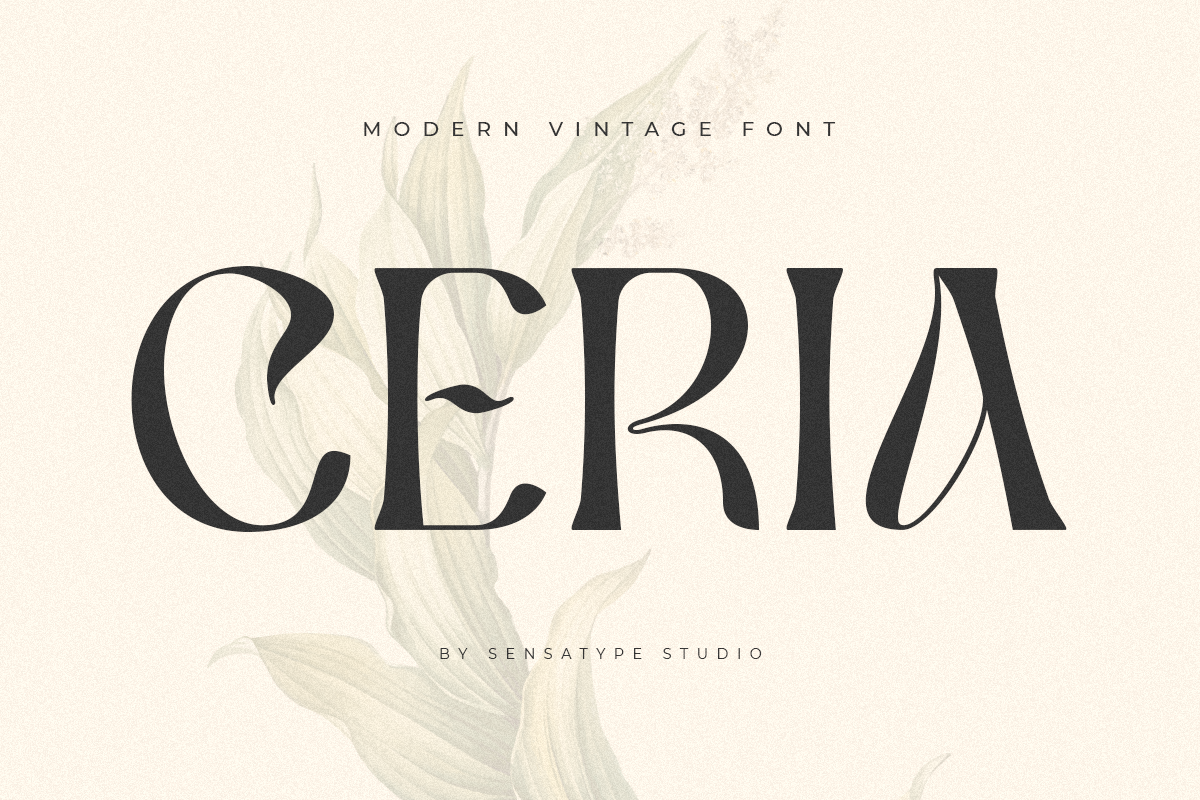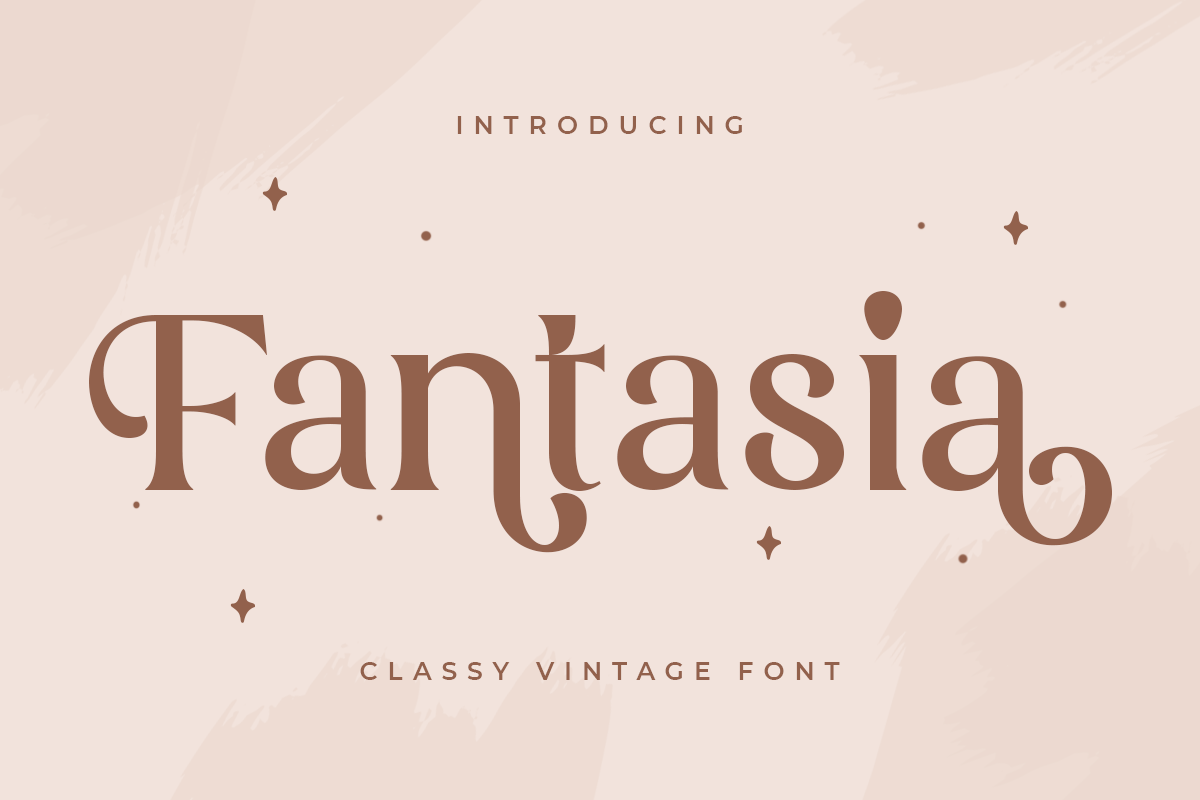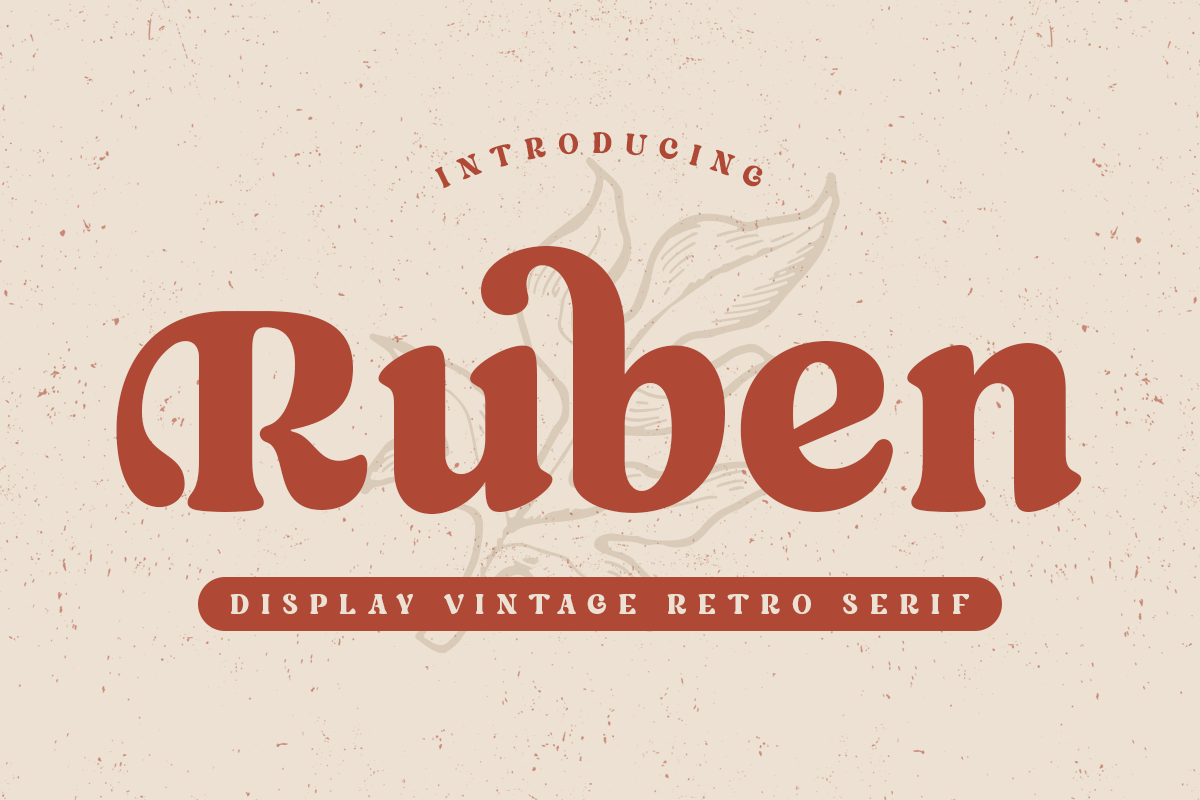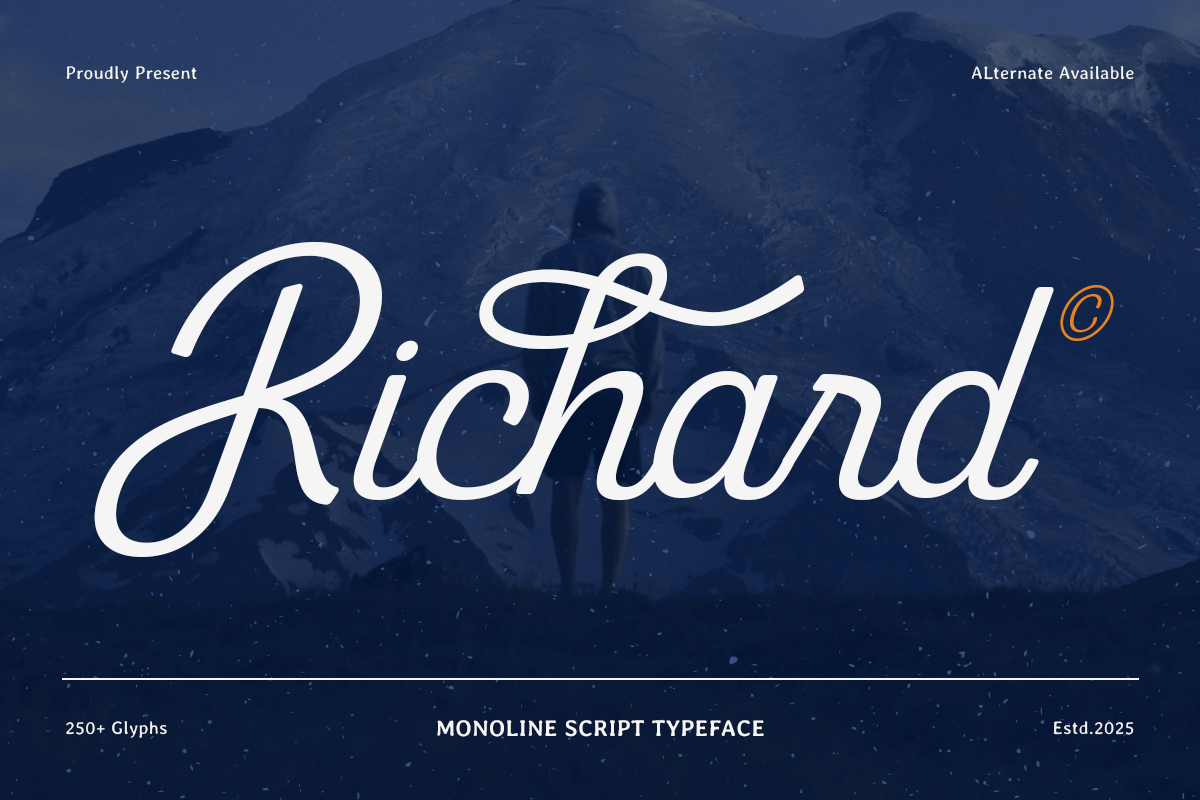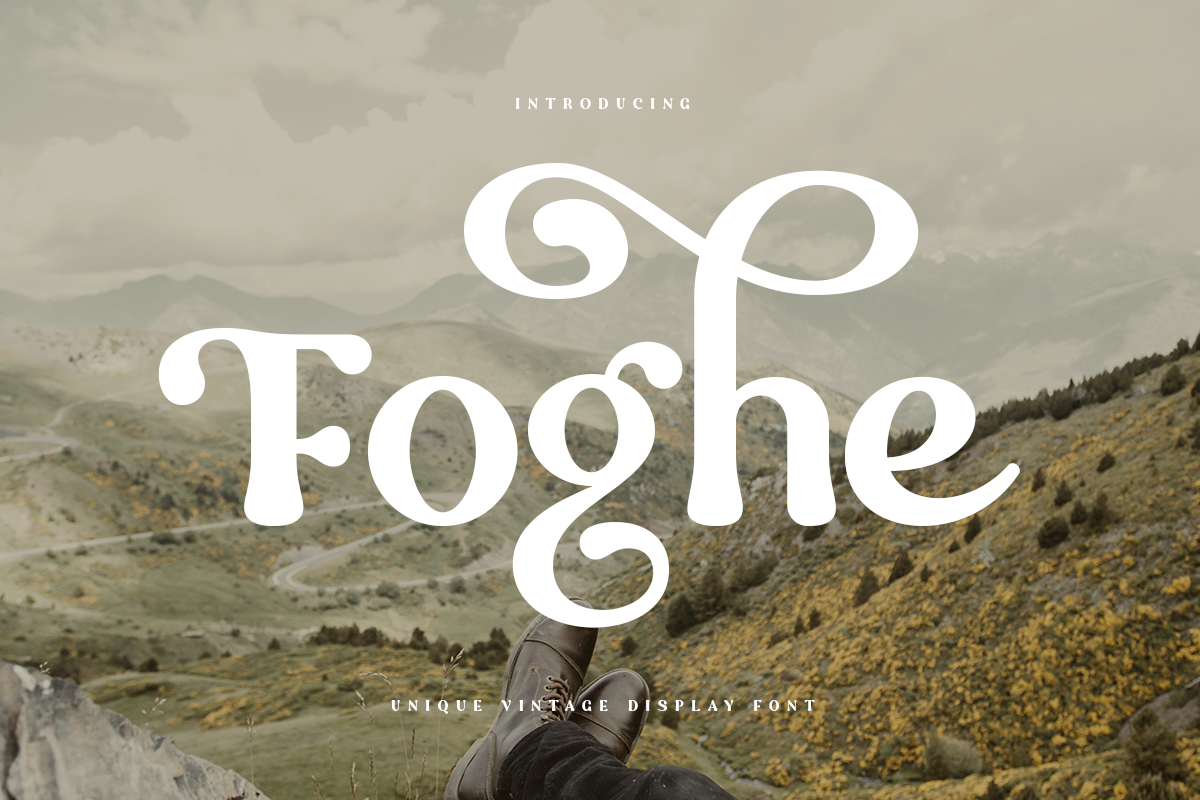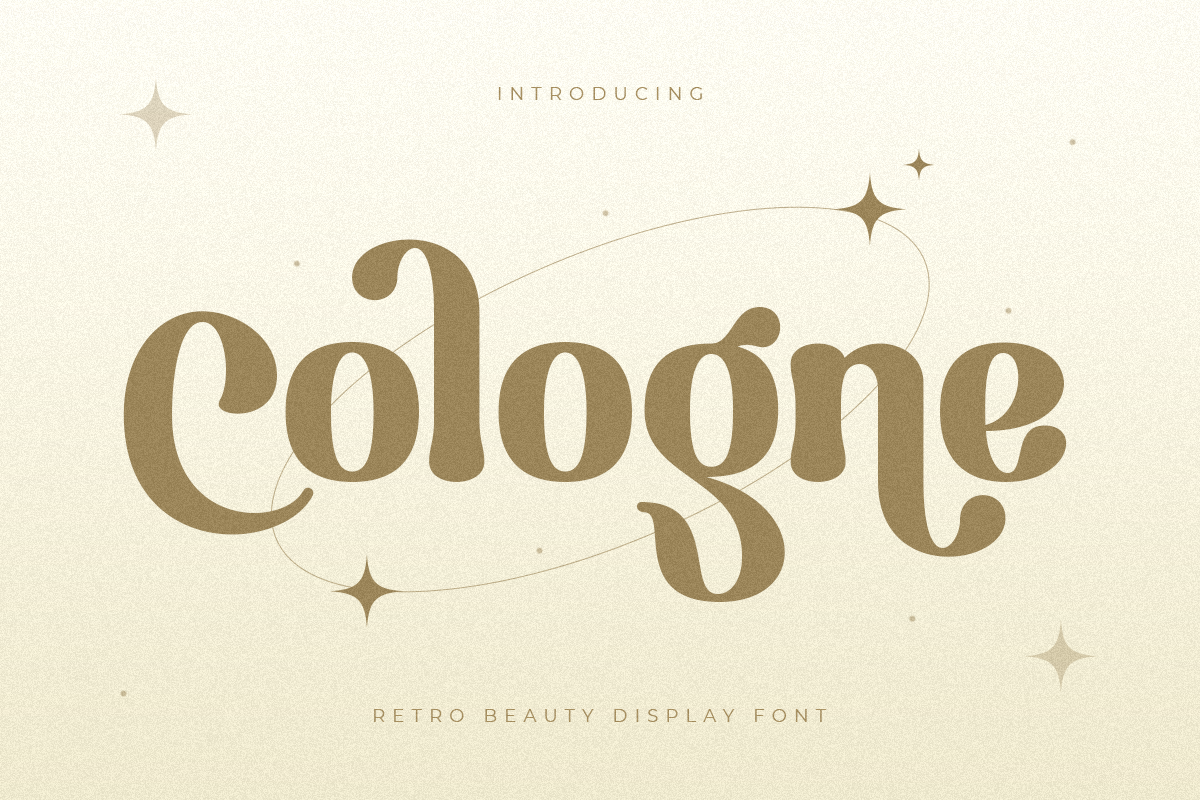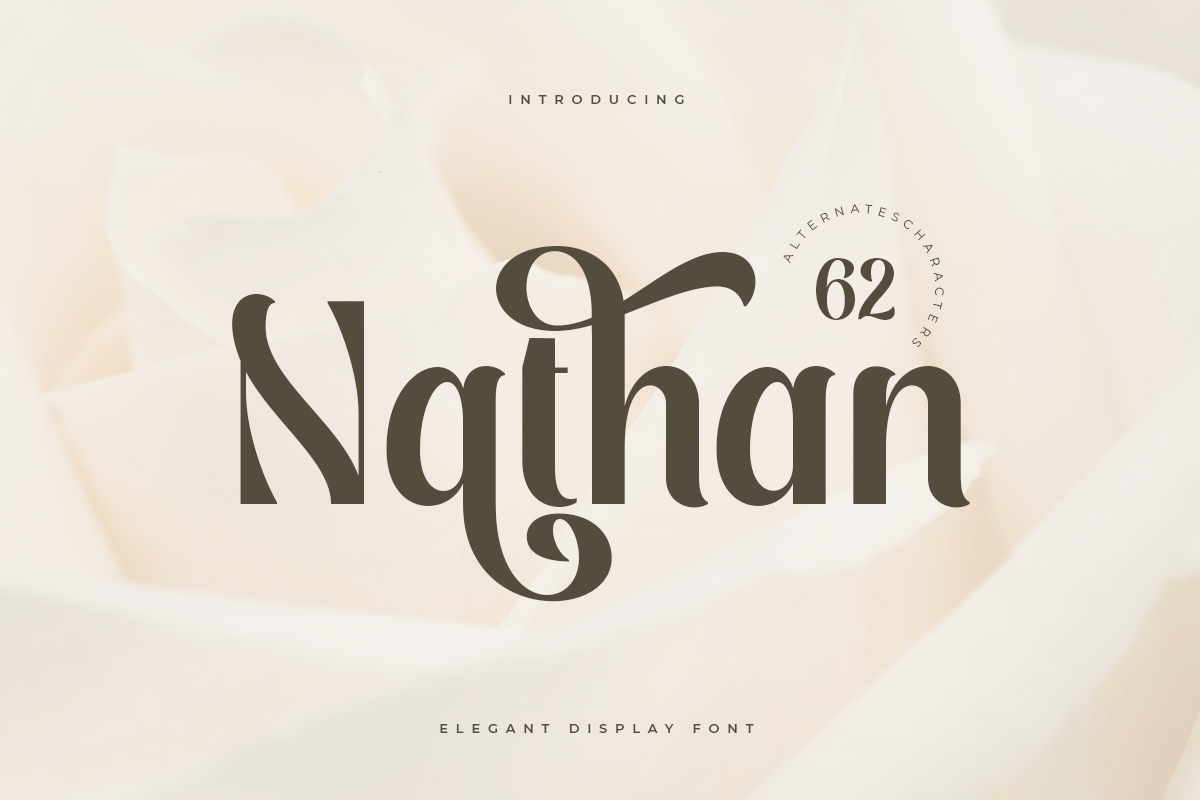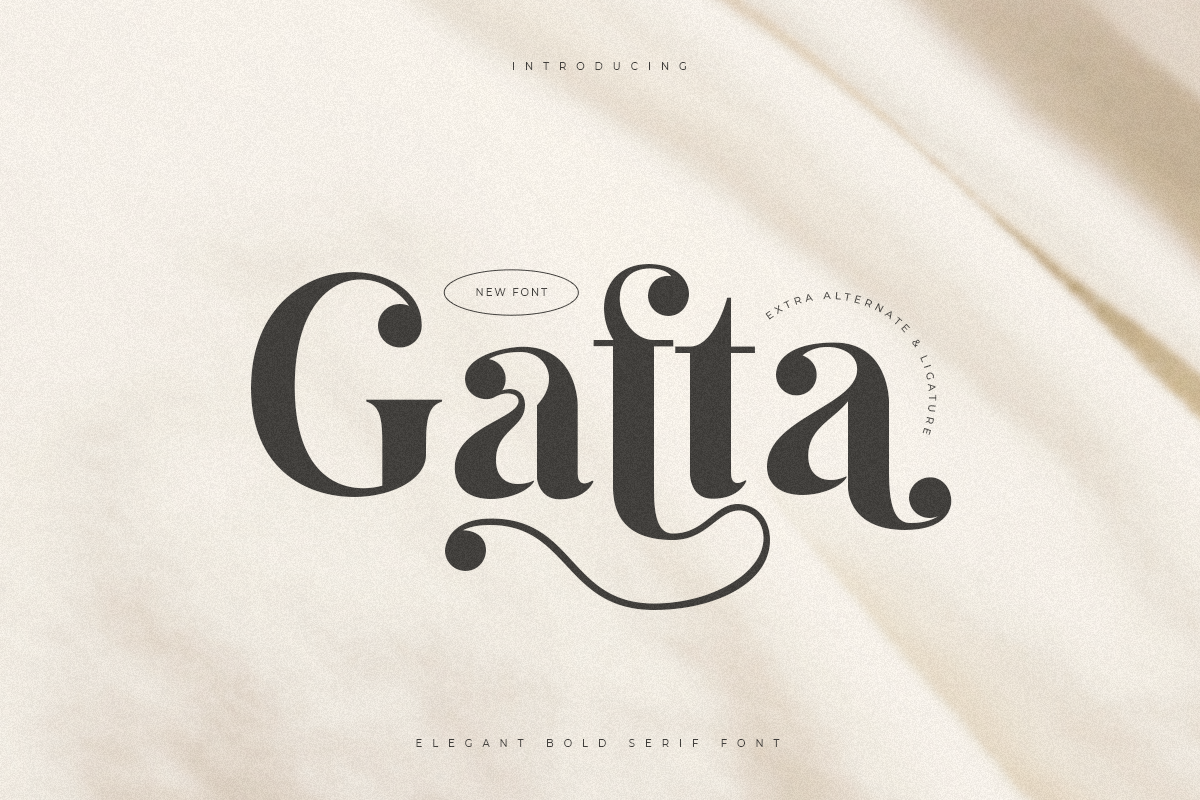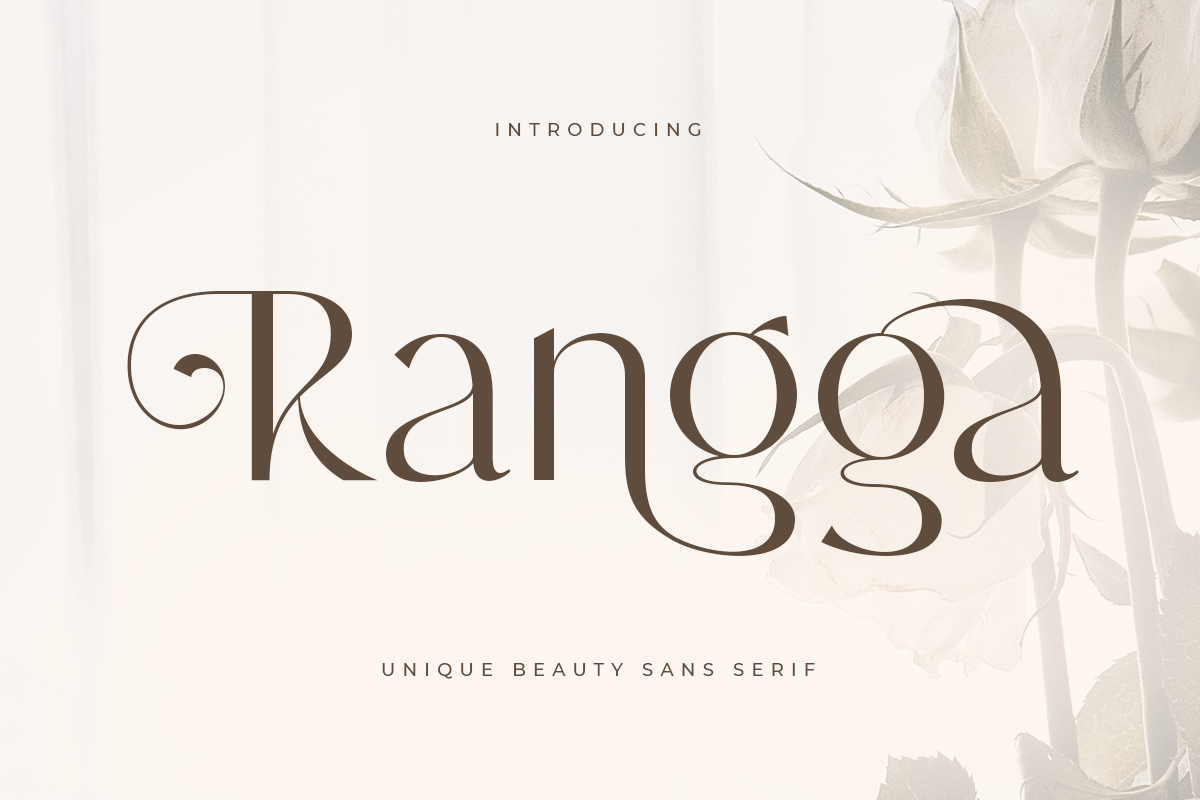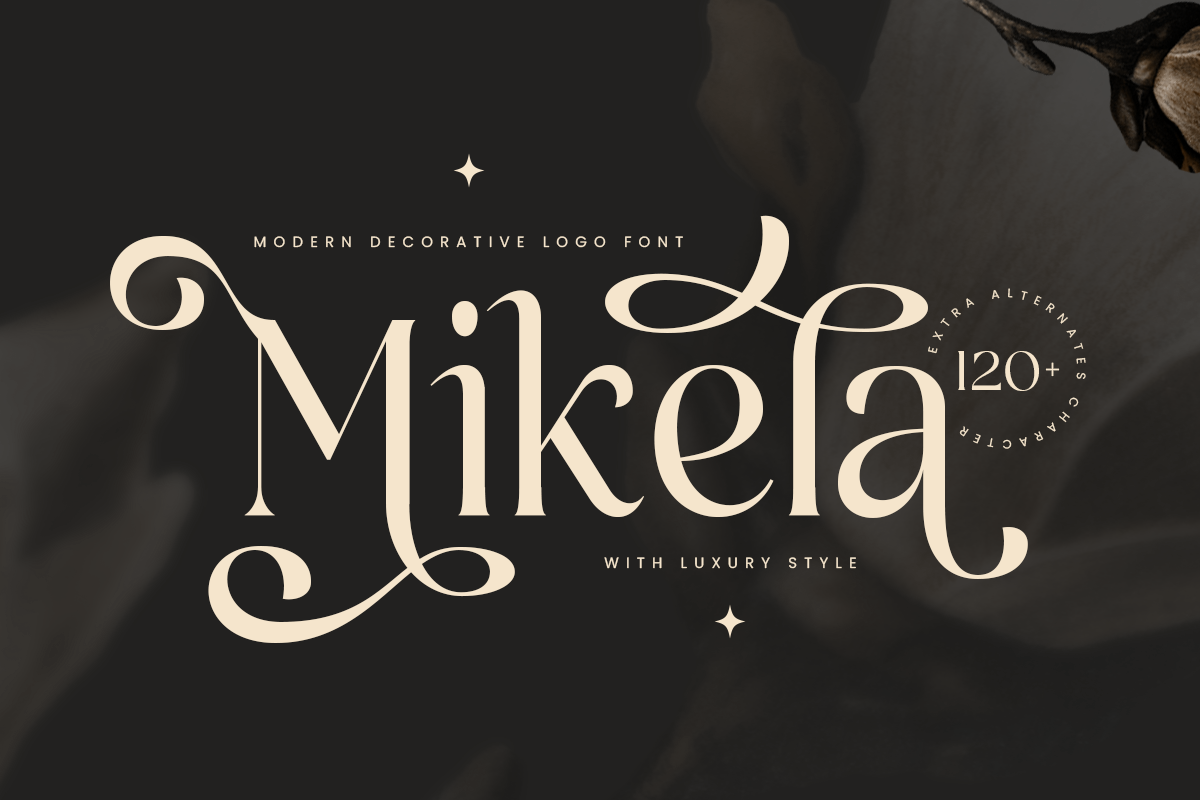
50+ Best Curvy Fonts for Logos, Branding, and Packaging in 2026
Fonts play a crucial role in design. They can make or break the entire look of your project. Curvy fonts are a popular choice for designers as they add a unique flair to their designs. These fonts have soft curves and rounded edges, giving them a friendly and approachable feel. In this article, we have compiled a list of the 50 best curvy fonts that you can use in your next project.
Fonts shape how a design feels before anyone reads a word. Curvy fonts stand out because they use soft lines, flowing shapes, and rounded details that feel expressive, stylish, and easy to remember.
In 2026, curvy fonts remain a strong choice for branding, packaging, invitations, beauty design, editorial layouts, and social media graphics. They help a design feel warmer, more distinctive, and more visually polished than plain or rigid type styles.
Sensatype offers a wide range of curvy fonts for different design directions, from retro serifs and elegant display fonts to script-inspired styles with flowing ligatures. This collection includes options for logo fonts, packaging, editorial design, invitations, and promotional graphics.
What Is a Curvy Font?
A curvy font uses smooth, shapely, and flowing letterforms instead of rigid or highly geometric construction. Some curvy fonts feel elegant and luxurious. Others feel playful, retro, feminine, or expressive.
Curvy fonts are often used when a design needs more personality. They are especially effective in short text, such as logos, headlines, labels, invitations, packaging, and social graphics.
When Should You Use a Curvy Font?
Curvy fonts work best when the design needs warmth, style, or visual character.
They are commonly used for:
Most curvy fonts perform best in headlines and display settings. For long paragraphs, they are usually less practical than more neutral serif or sans serif fonts.
Types of Curvy Fonts
Curvy fonts are not one single style.
Some are soft retro serifs with decorative letterforms. Some are script-inspired fonts with flowing strokes. Others are display typefaces with rounded terminals, dramatic ligatures, or alternate characters.
In this list, you will find curvy fonts for:
50+ Best Curvy Fonts to Try in 2026
Algebra Curvy Font (TTF, OTF, WOFF)
Algebra is a modern display font with fluid curves and bold strokes. It works best for standout headlines, logos, posters, and modern branding. The shape feels sharp but still expressive, which makes it a strong option for designers who want a curvy font with a contemporary edge.
Quinnie Curvy Font (TTF, OTF, FF)
Quinnie is a retro serif with curved details and vintage character. It is well suited to branding, packaging, invitations, and social media graphics. The font balances decorative style with solid readability, making it useful for designers who want a nostalgic look without losing clarity.
Cologne Curvy Font (TTF, OTF, WOFF)
Cologne is a playful retro display font with bold curves and a quirky personality. It works well for logos, packaging, posters, and branded graphics that need a more casual and memorable look. Its vintage influence gives it charm, while the curved forms keep it lively and modern.
Abigail Curvy Font (TTF, OTF, WOFF)
Abigail is an elegant curvy font designed for branding and logo work. Its refined letterforms make it a good fit for beauty brands, boutiques, packaging, and premium identity systems. The overall look is clean, graceful, and easy to apply across modern brand visuals.
Michael Curvy Font (TTF, OTF, WOFF)
Michael is a decorative font with graceful curves and well-crafted ligatures. It is a strong choice for invitations, logo design, beauty branding, and editorial headlines. The letterforms feel romantic and polished, which gives designs a more refined visual tone.
John Mayer Font (TTF, OTF, WOFF)
John Mayer is a fancy script-style font with flowing strokes and ornate ligatures. It fits wedding design, packaging, branding, and creative promotional work. The overall style feels expressive and decorative, making it best for short text, titles, and logo applications.
Malibu Curvy Font (TTF, OTF, WOFF)
Final Thoughts
Curvy fonts are not just decorative. They help shape brand tone, product appeal, and first impressions.
If you need something elegant, soft, playful, retro, or expressive, the right curvy font can change the entire feel of a design very quickly. The best choice depends on where you use it: logo, packaging, invitation, editorial headline, or social content.
Start with the use case first. Then choose the font style that supports the mood you want to create.